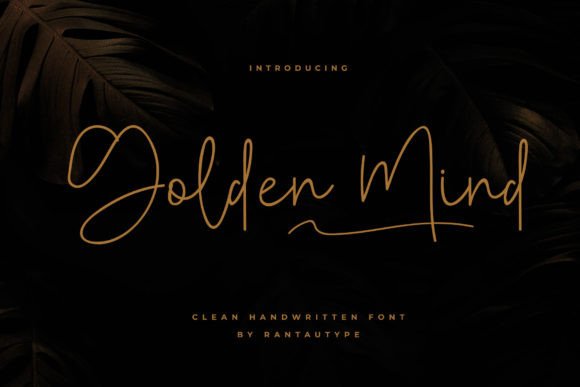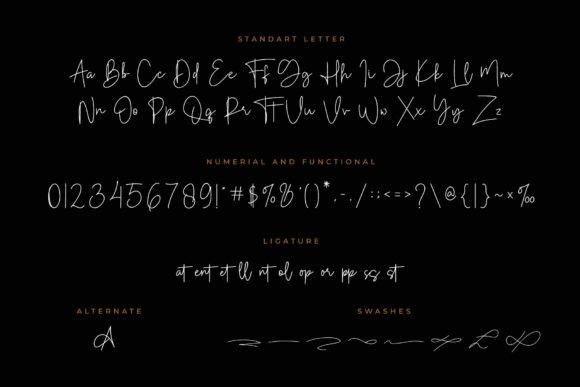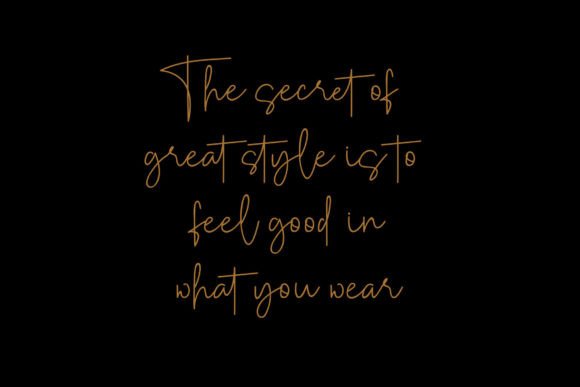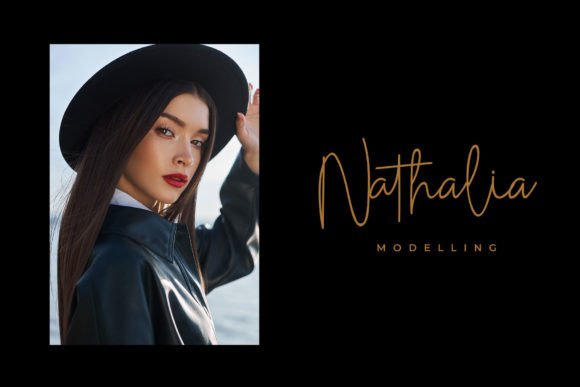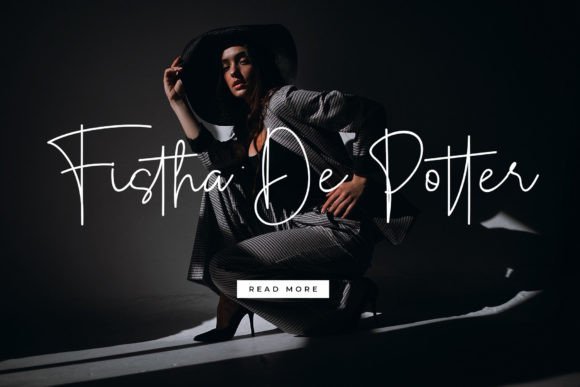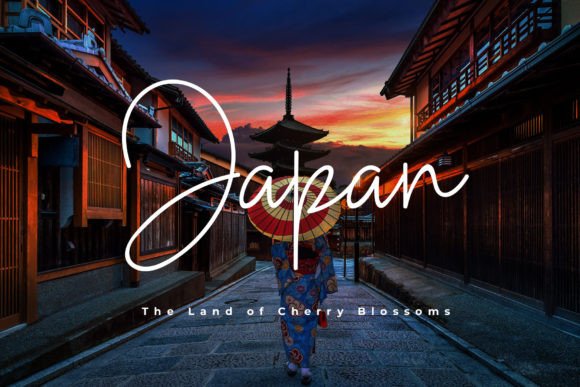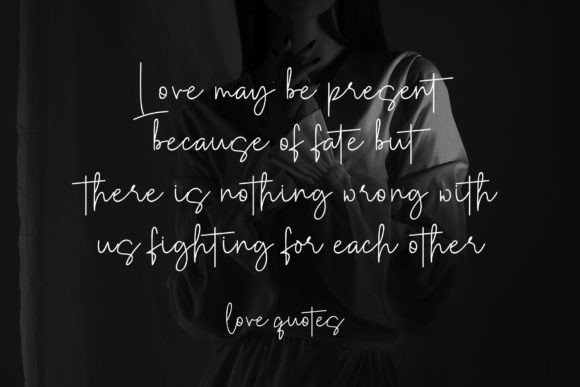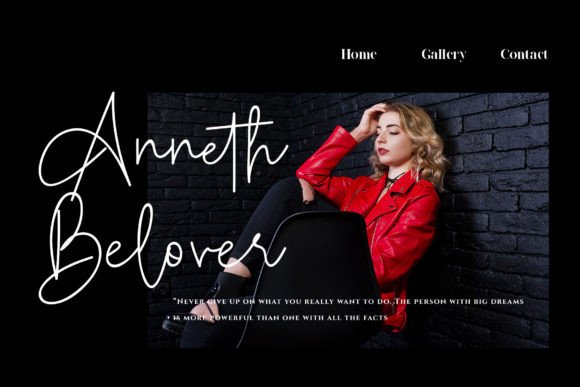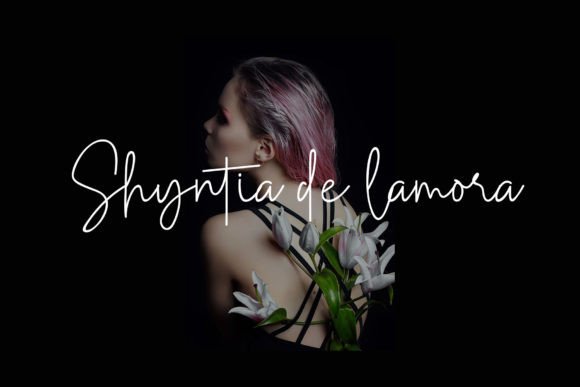
HomeScript FontsGolden Mind Font Script Fonts Golden Mind Font FacebookXPinterestWhatsApp Golden Mind Font Poster 2 Golden Mind Font Poster 3 Golden Mind Font Poster 4 Golden Mind Font Poster 5 Golden Mind Font Poster 6 Golden Mind Font Poster 7 Golden Mind Font Poster 8 Golden Mind Font Poster 9 Golden Mind Font Poster 10 Golden Mind Font Poster 11 About Golden Mind Font Golden Mind is a sweet and lovely script that will easily add a personal touch to any creative idea. DOWNLOAD ON CREATIVE FABRICAThis font is sold and delivered by Creative Fabrica. Font Canyon may earn a commission if you buy through this link. People also explored Anordighos Amalisa Font Beauty Stuff Font Billijanes Font Nature Boho Font Rockstar Font Bulgaria Dreams Font True Story Font Hello New Abnormal Font 320 0 TagsGolden Mind Font Previous articleSeven Day Signature FontNext articleCrayon Hand Font LEAVE A REPLY Cancel reply Comment: Please enter your comment! Name:* Please enter your name here Email:* You have entered an incorrect email address! Please enter your email address here Website: Save my name, email, and website in this browser for the next time I comment. Personal Use Free Groomer Personal Use Free Read more about this font Adventure Font Personal Use Free Read more about this font Veronica Personal Use Free Read more about this font The Royal Personal Use Free Read more about this font BLOG How to Cut Any Font on Cricut: Convert a Font to SVG (Free) Turn any font into a clean SVG so it cuts crisp on Cricut - a quick 3-step workflow using a free font-to-SVG tool. Top 10 Handwritten Fonts That Elevate Your Designs Modern Sans-Serif Fonts That Brands Love in 2025 Best Fonts for T-Shirt Design – Top 2025 Picks